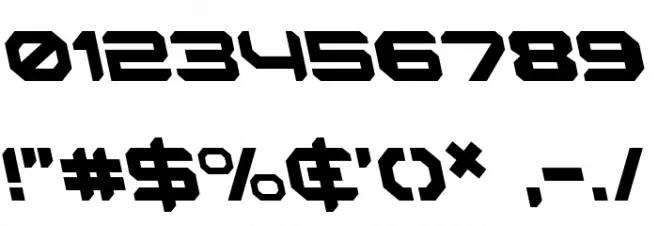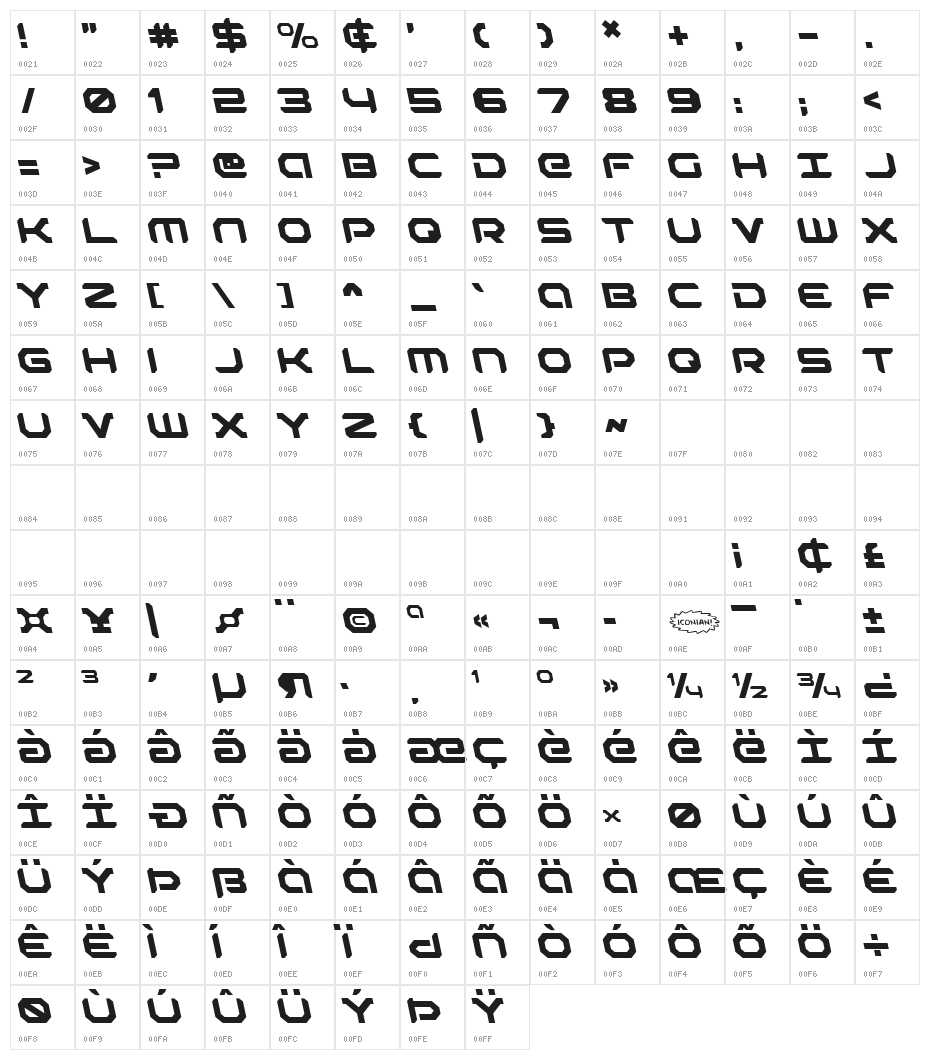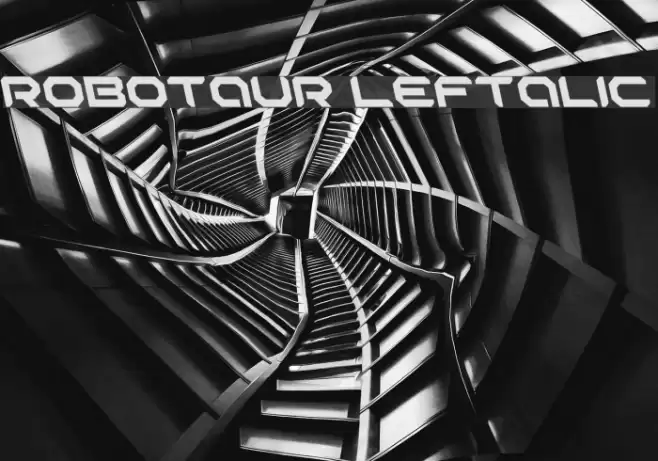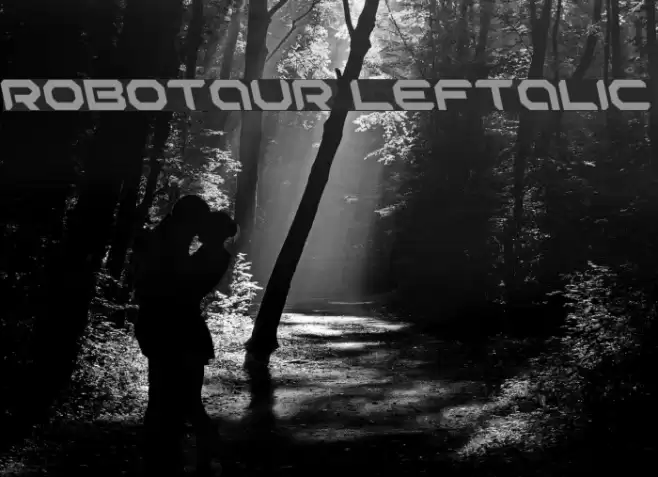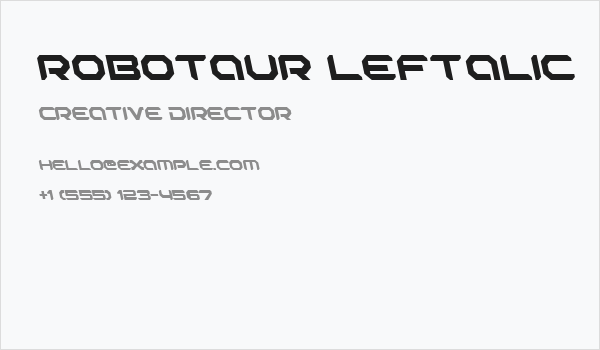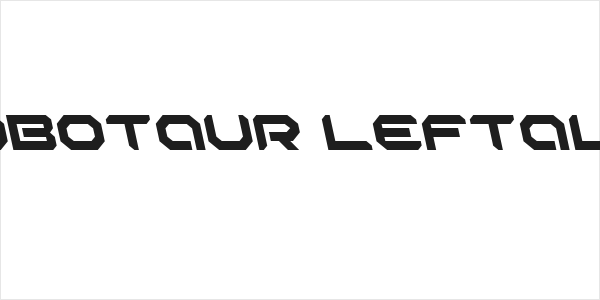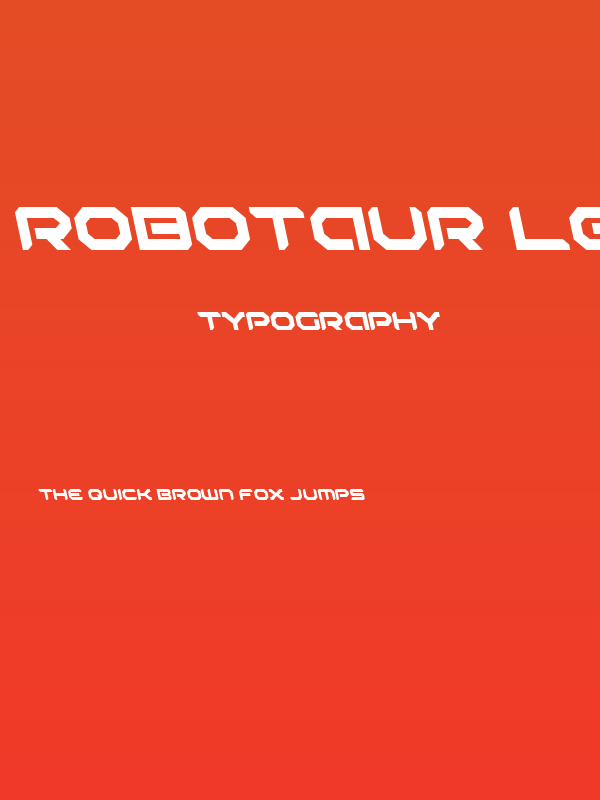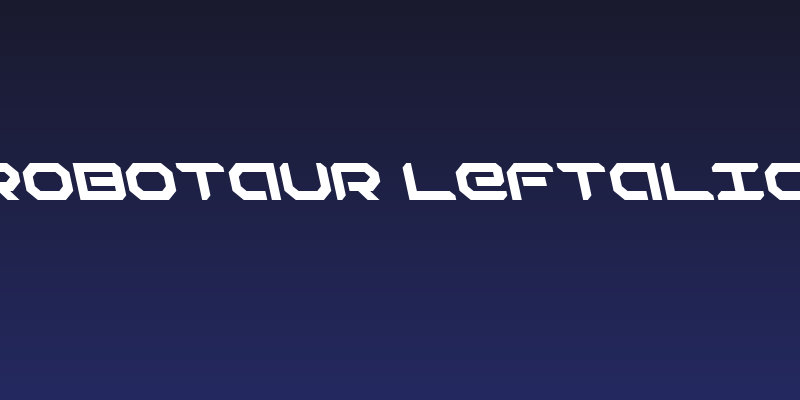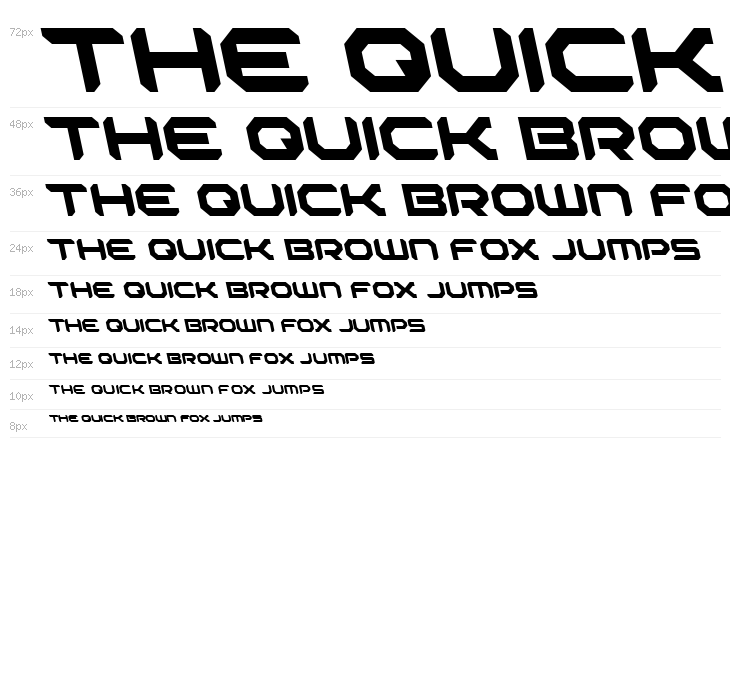
Robotaur Leftalic Font
Robotaur Leftalic Description
This font features a futuristic and angular design, characterized by its bold, geometric shapes and sharp edges. The letters are slightly slanted, giving a dynamic and forward-moving appearance. The uppercase and lowercase letters maintain a consistent style, with uniform stroke widths that create a cohesive look. The numbers and special characters follow the same design principles, ensuring a harmonious overall appearance. This font's unique style makes it stand out, ideal for projects that require a modern and tech-inspired aesthetic.
| Proposed Projects | Ideal for sci-fi themed designs, technology branding, video game titles, and futuristic posters. |